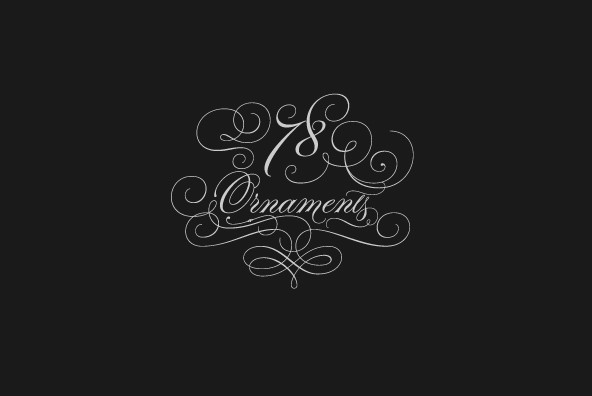
Typesenses presents Parfumerie Script, designed by Sabrina Lopez. With more than 2500 glyphs, Parfumerie is unique amongst the others in its style because it is based on the author's calligraphy.
Typesenses presents Parfumerie Script, designed by Sabrina Lopez. With more than 2500 glyphs, Parfumerie is unique amongst the others in its style because it is based on the author's calligraphy. One of its variables is a Decorative option which combines Copperplate Calligraphy with an ornamental form native of Buenos Aires (where Sabrina lives), the Filete Portenio, which makes it look original amongst the other fonts. More? Sabrina has exclusively designed this font for two years, with an obsessive adjustment, in order to provide the world with one of the best scripts ever made. With the idea of Endless way to write a word, lots of glyphs were Open-type programmed so that users can dive into many alternates and ligatures according to their language. Parfumerie, as its name reflects, is attractive like a fragrance, delicate, elegant, sophisticated, feminine, sensual, glamorous, ornamental and decorative. It works perfect in the world of perfumes, make up, fashion, weddings, greeting cards, wines, chocolates, romantic novels, magazines, books. It is also versatile enough to be used in any kind of work because the user can choose between a wide range of possibilities: Standard Ligatures, Discretionary Ligatures, Required Ligatures, Contextual Ligatures, Historical Ligatures, Swashes, Stylistic Alternates, Titling, Contextual Alternates, Historical Forms, Initial Forms, Terminal Forms #1 #2 #3, 19 stylistic sets, 78 ornaments, 4 options of numbers, and up to 20 alternates per glyph in the Pro Version.